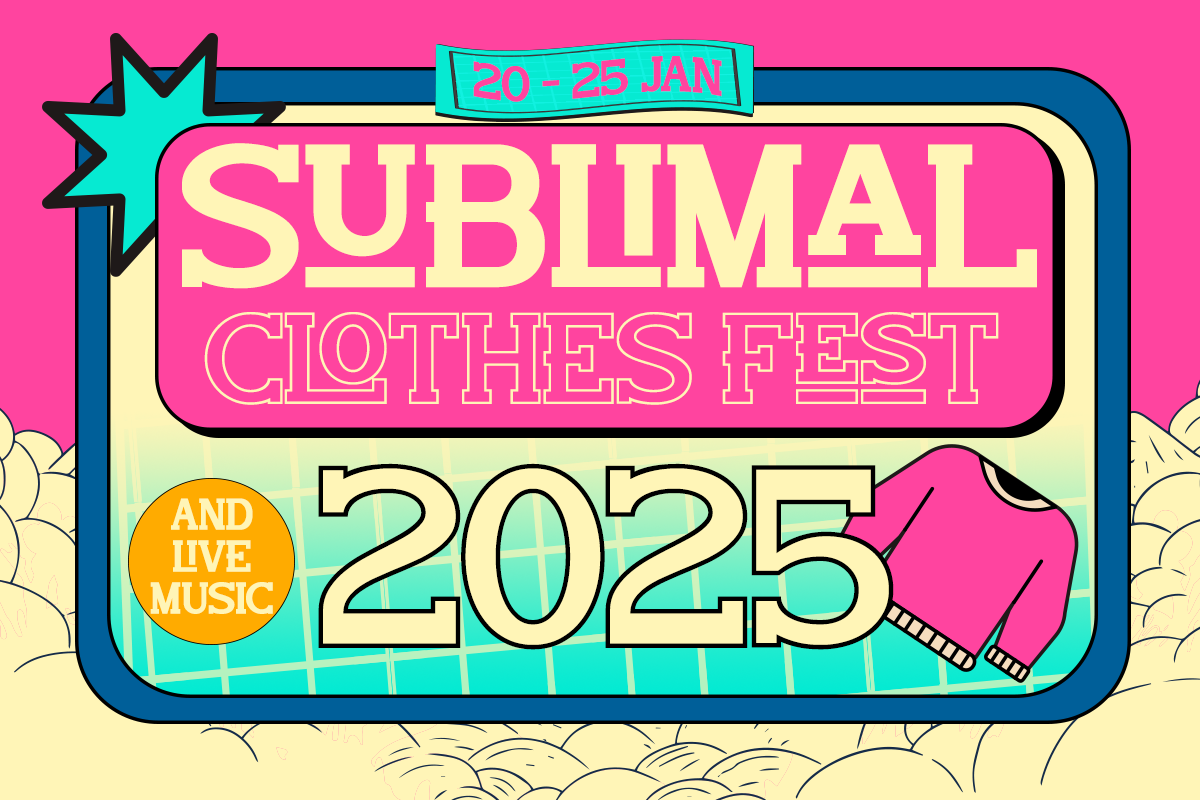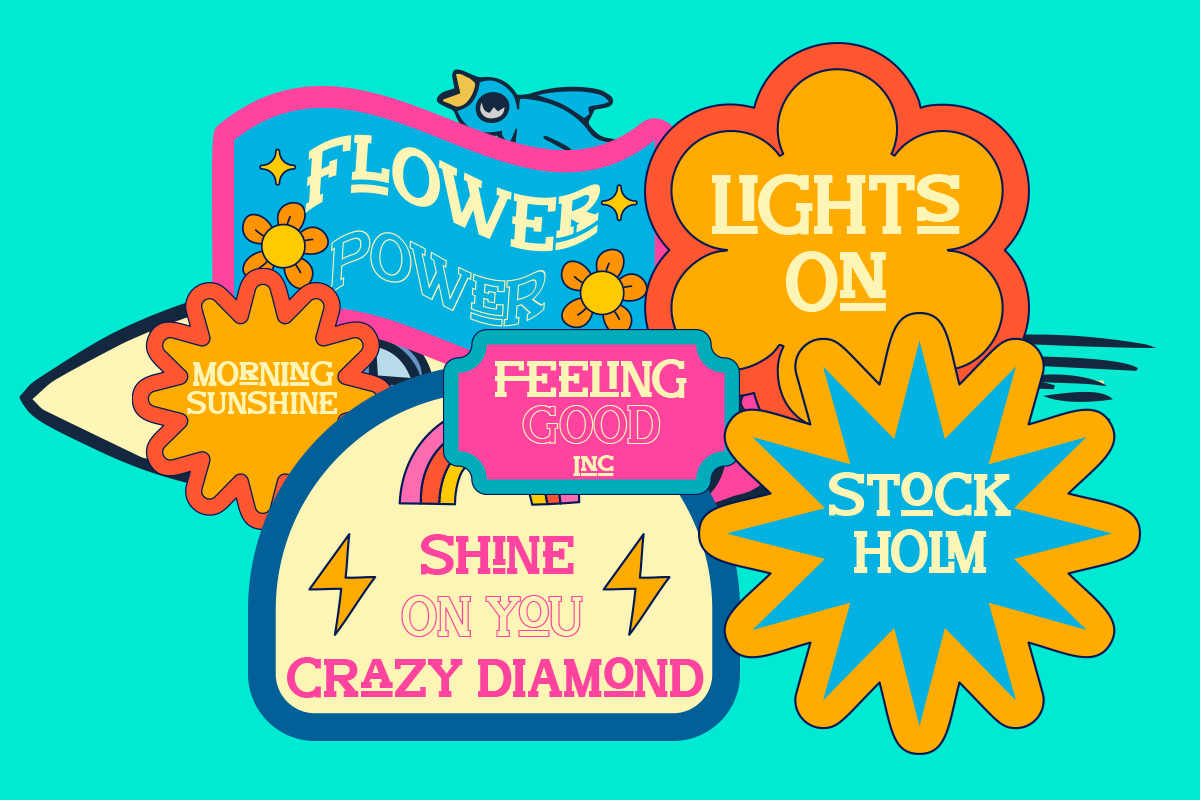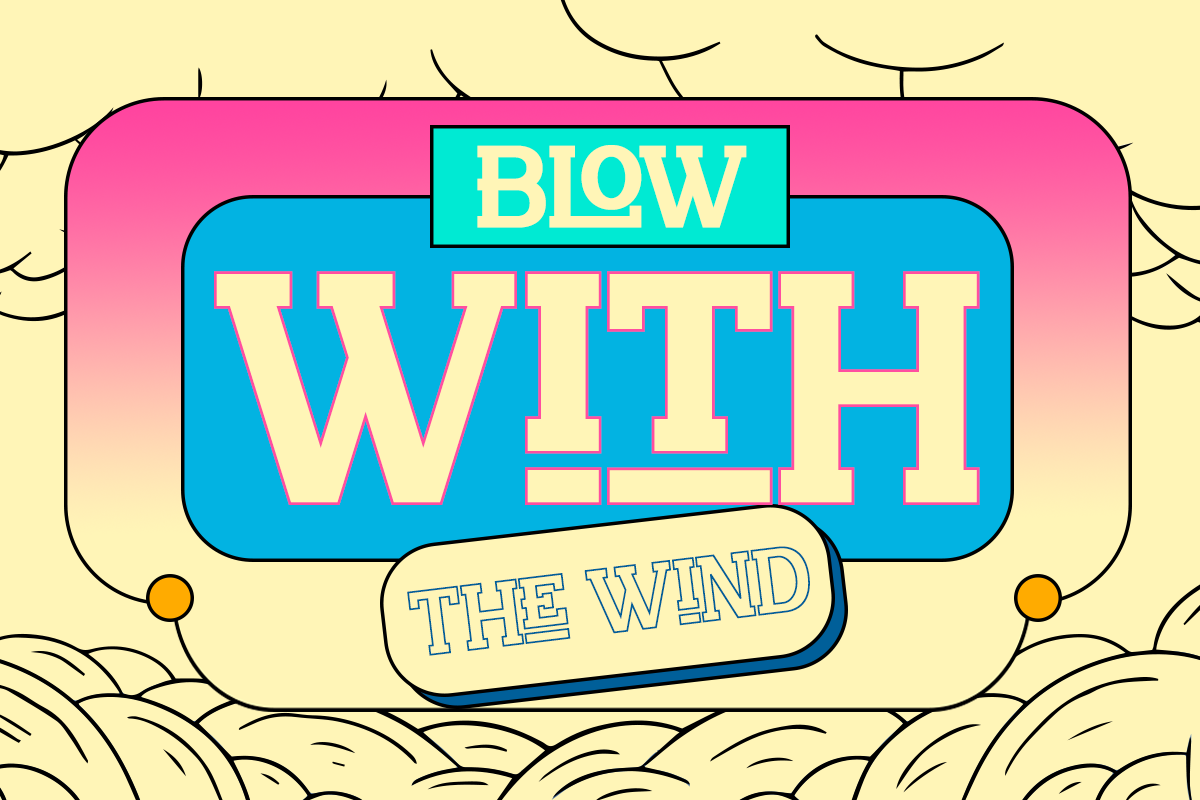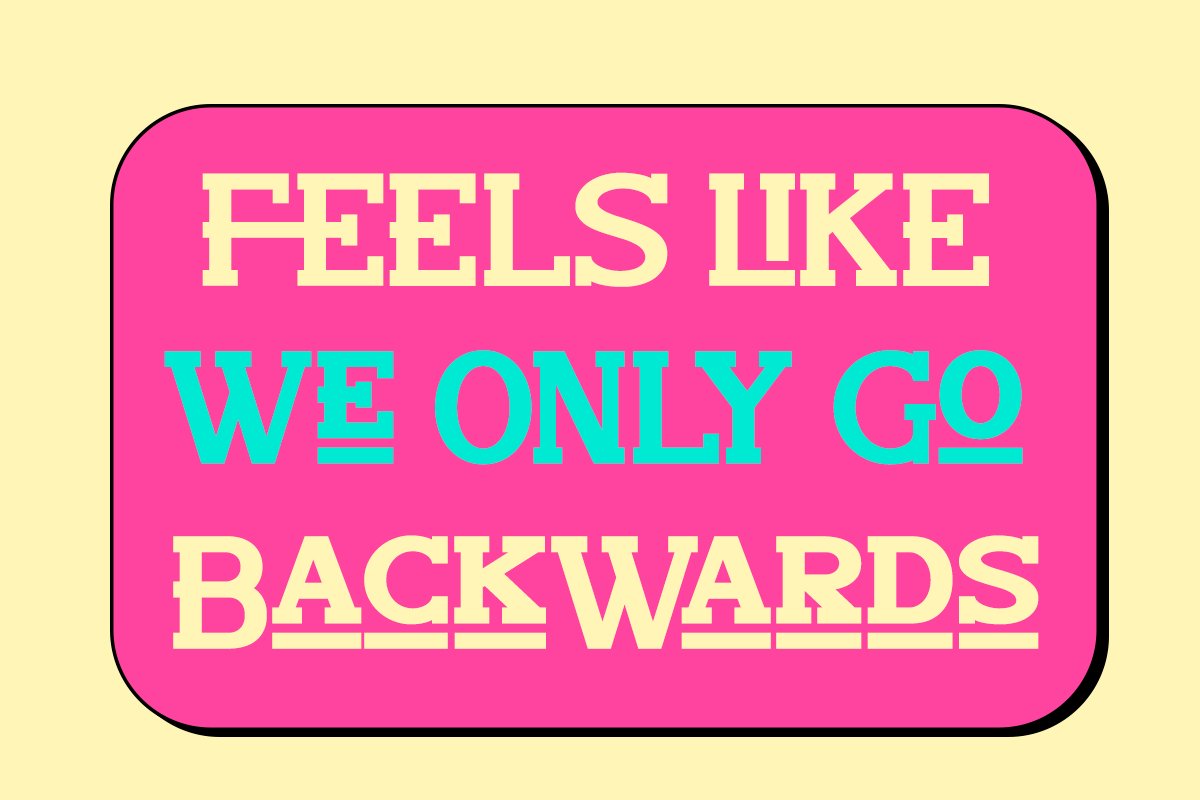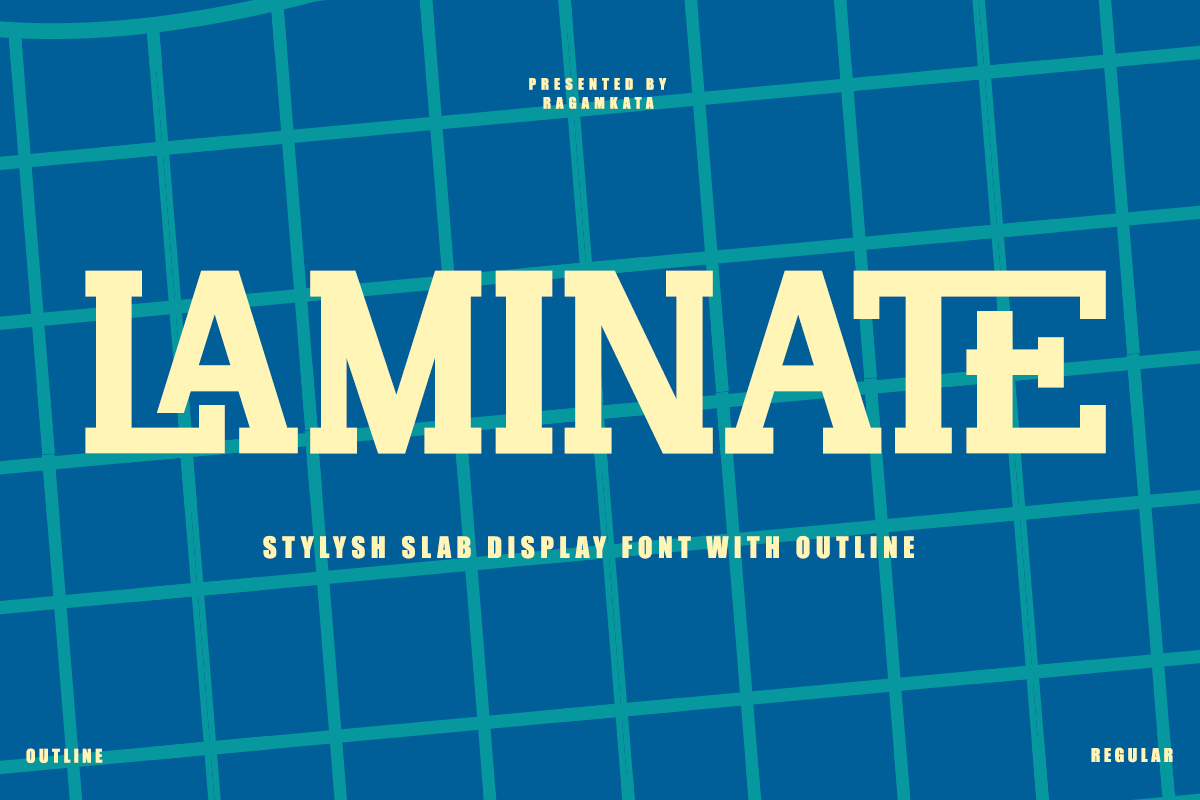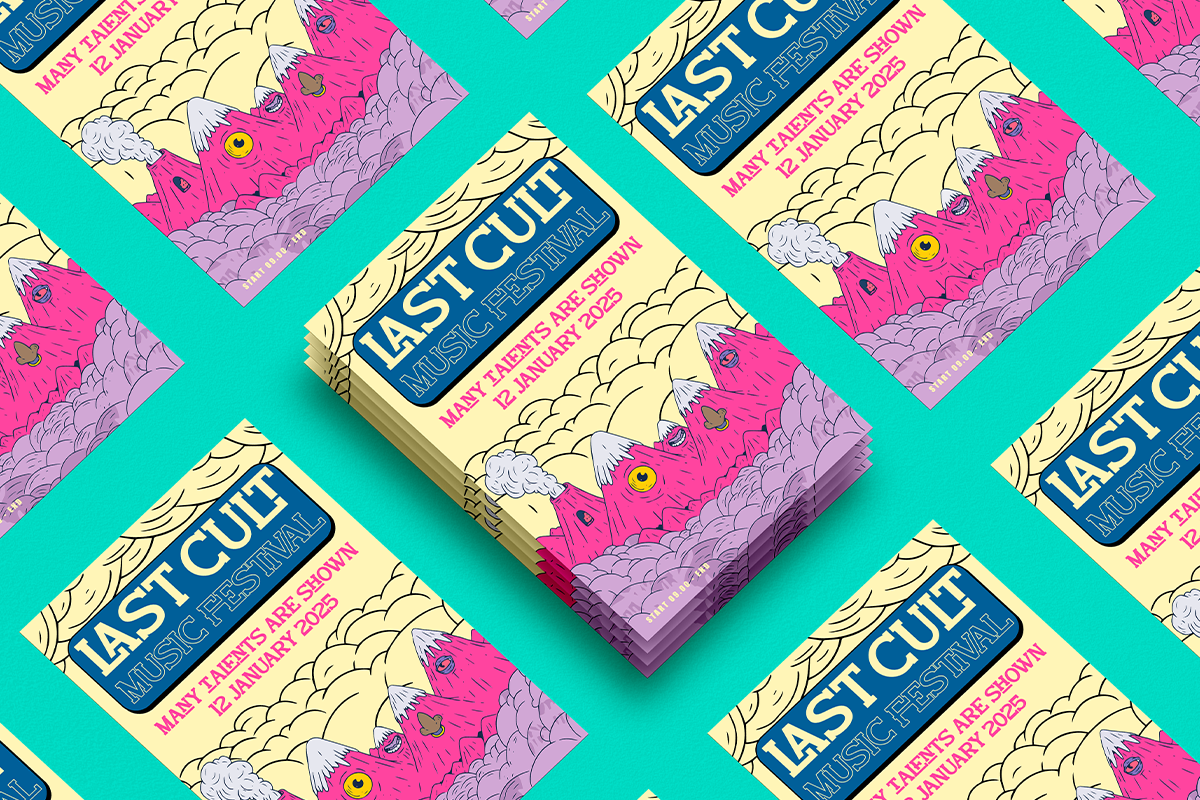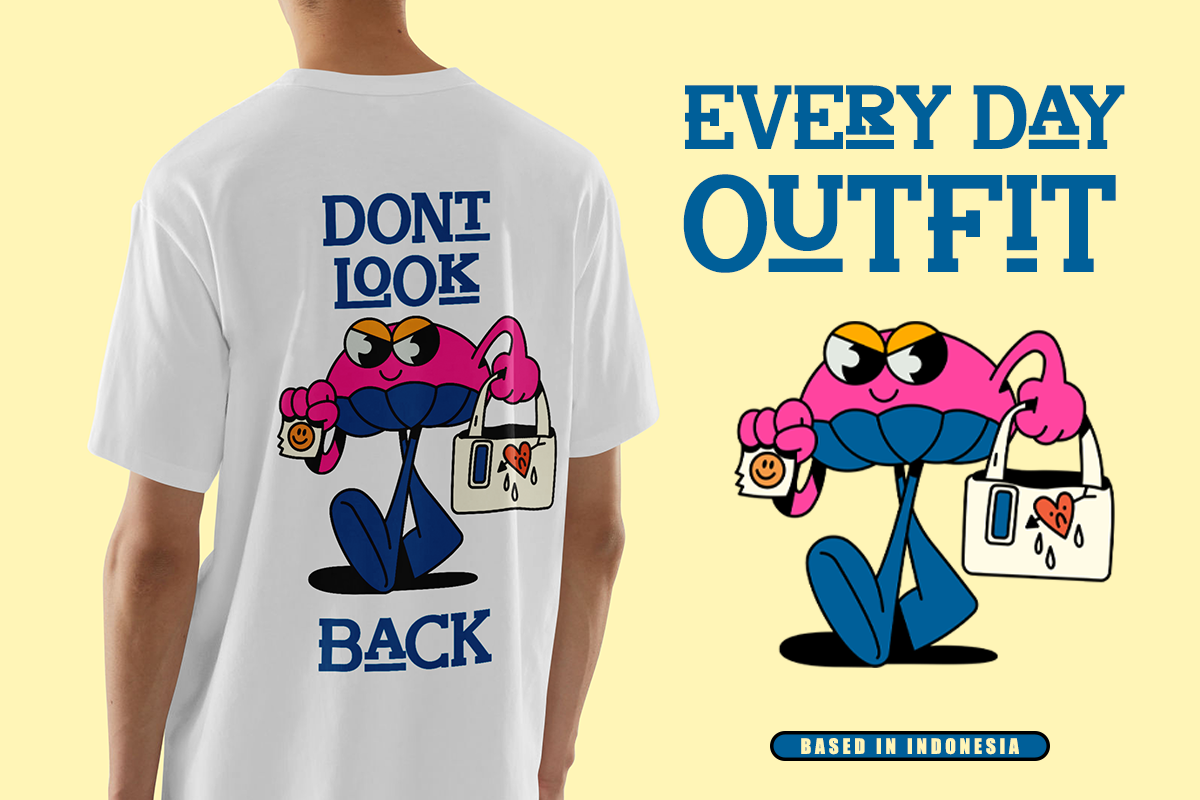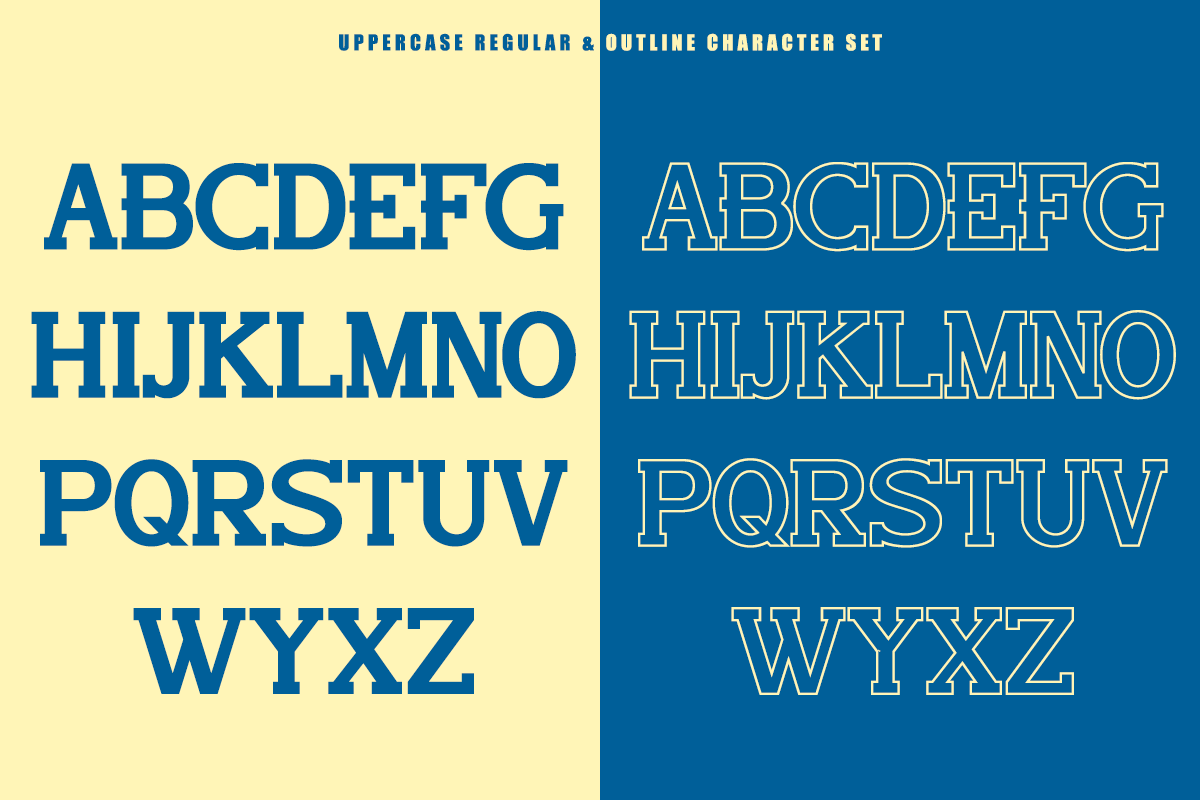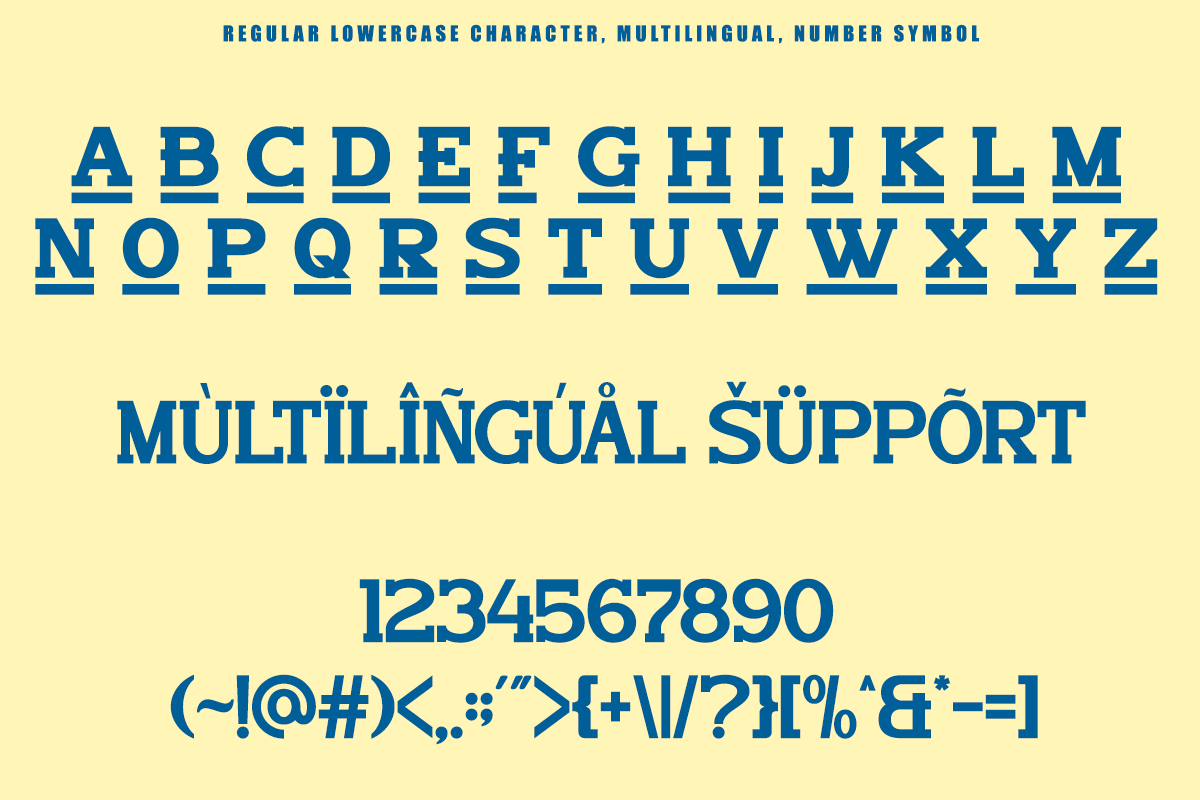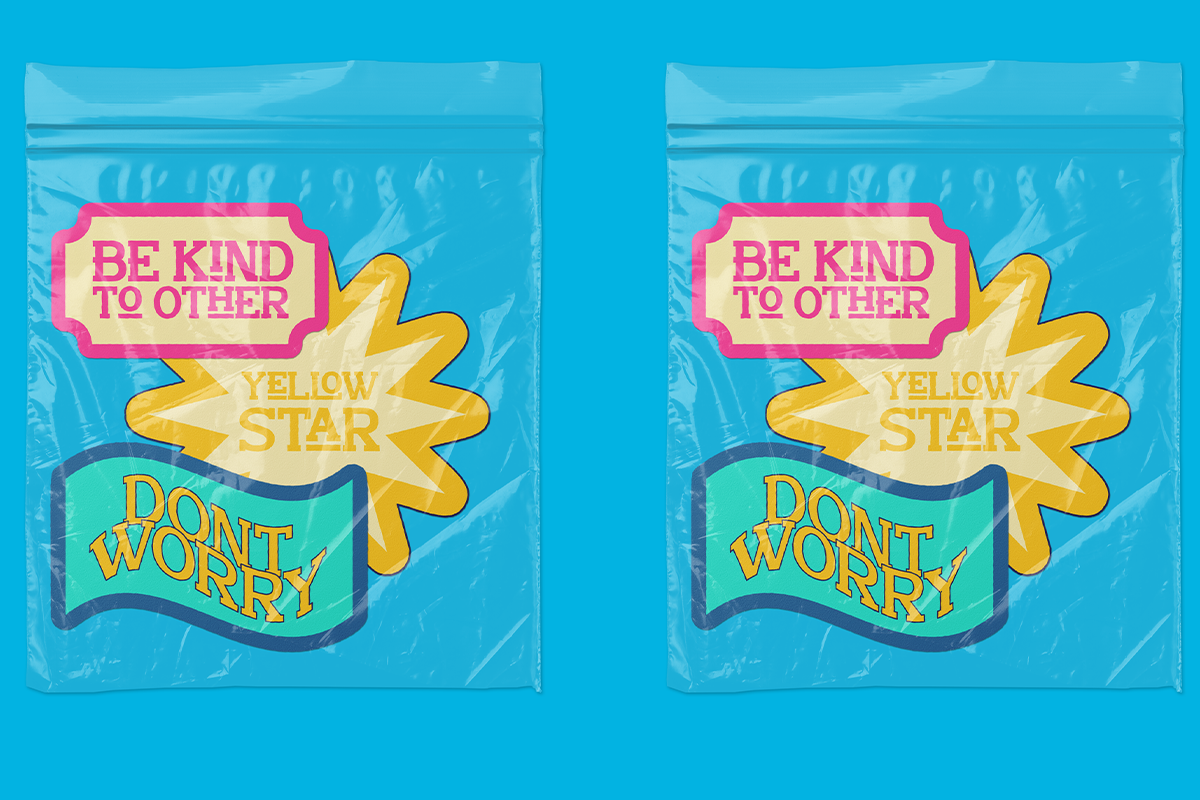
Laminate - Stylish Slab Font
Laminate is a stylish display font is inspired by pop design posters from the 80s and 90s. Comes in 2 styles, Regular and Outline. This font supports multilingual language and Ligature. Laminate is perfect for titles, design posters, logotypes, merchandise, flyers, packaging, and etc. very helpful for communicating your design.